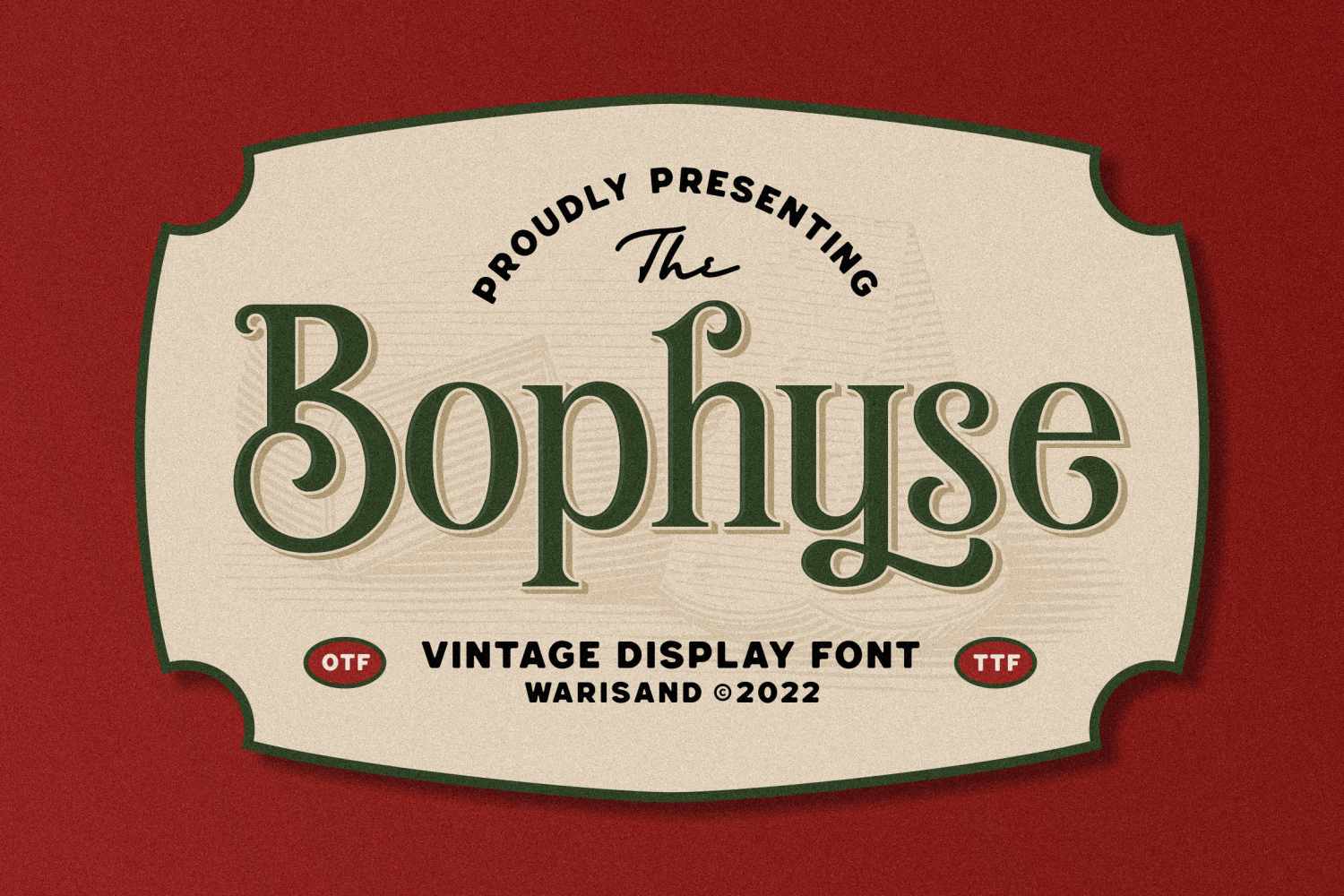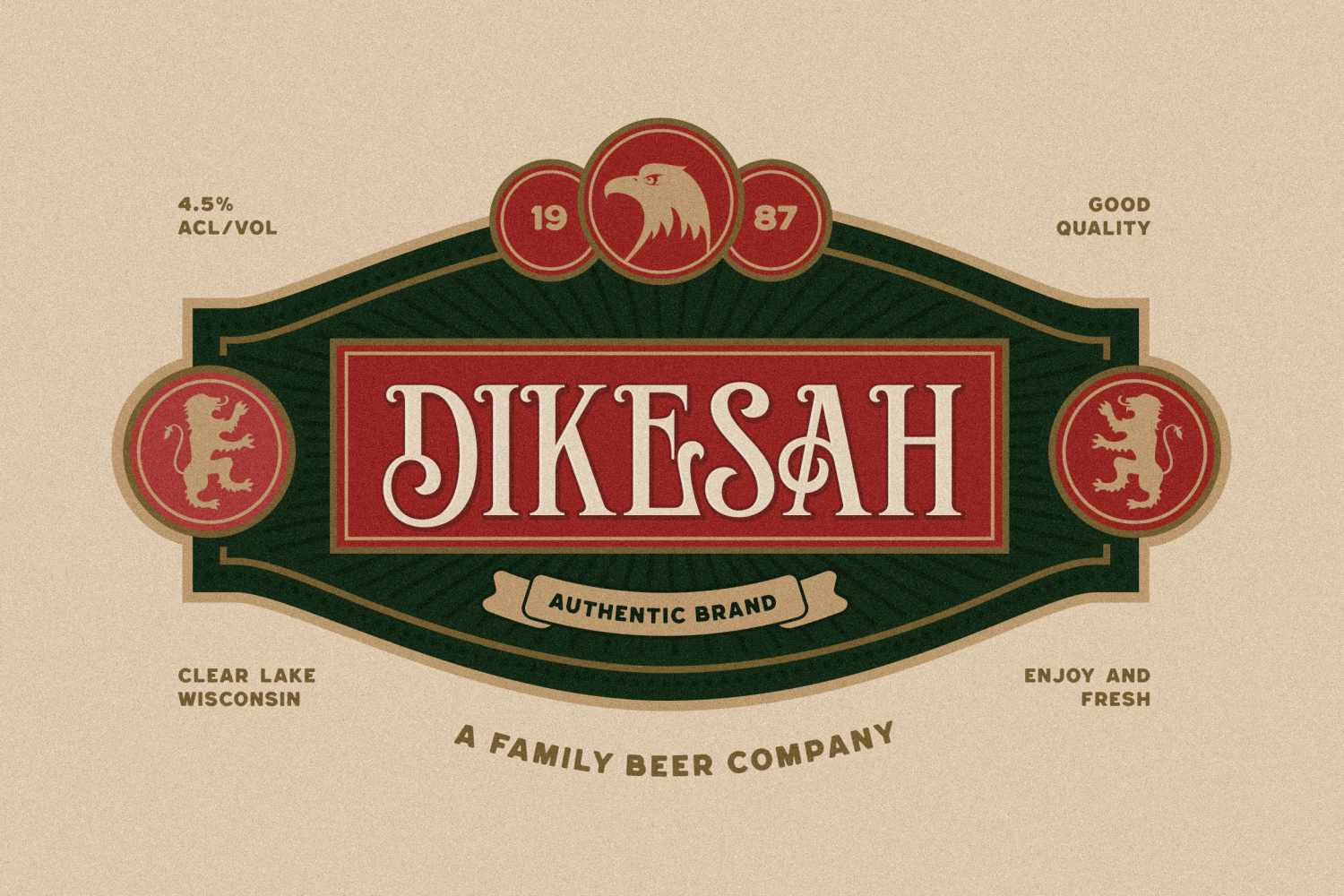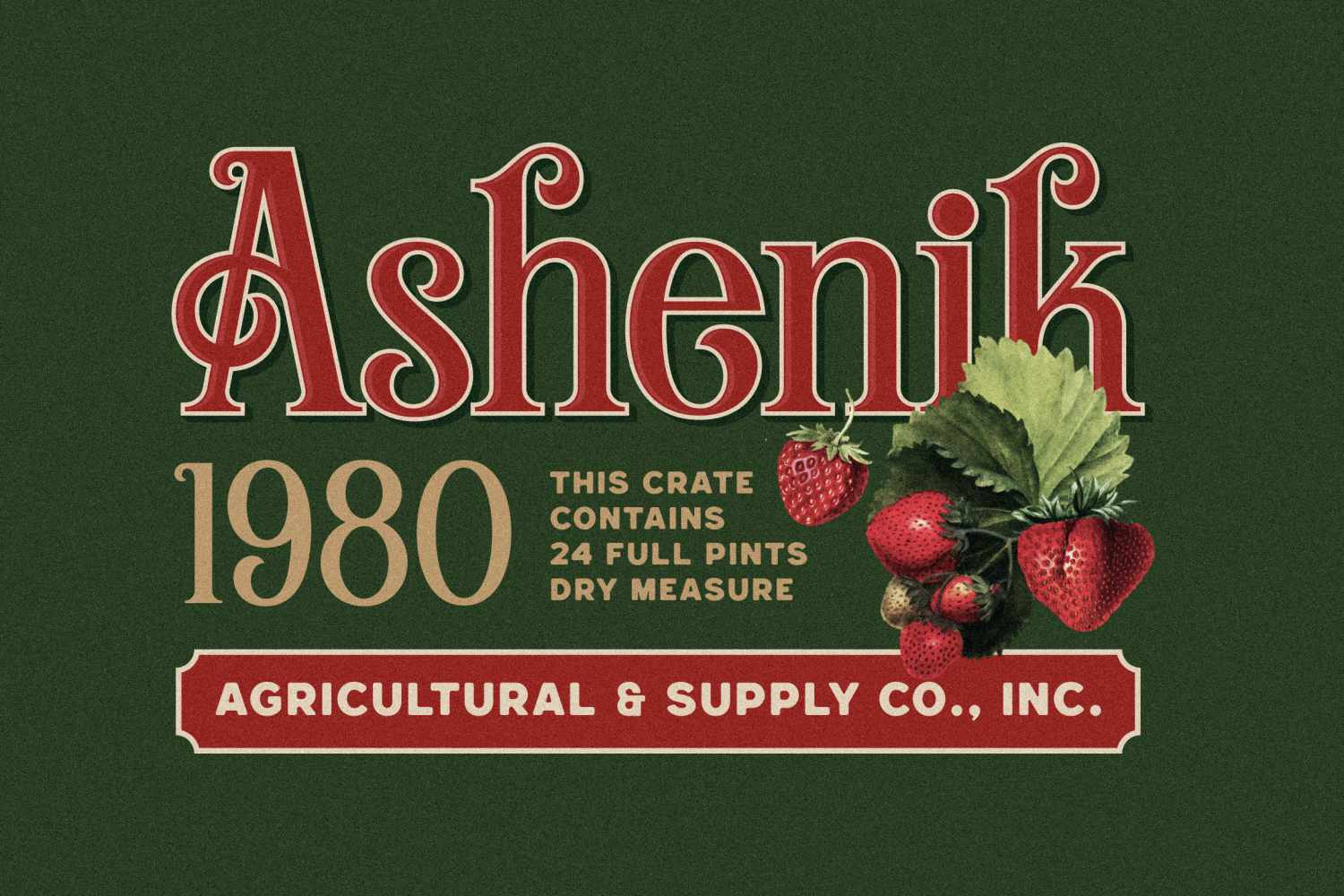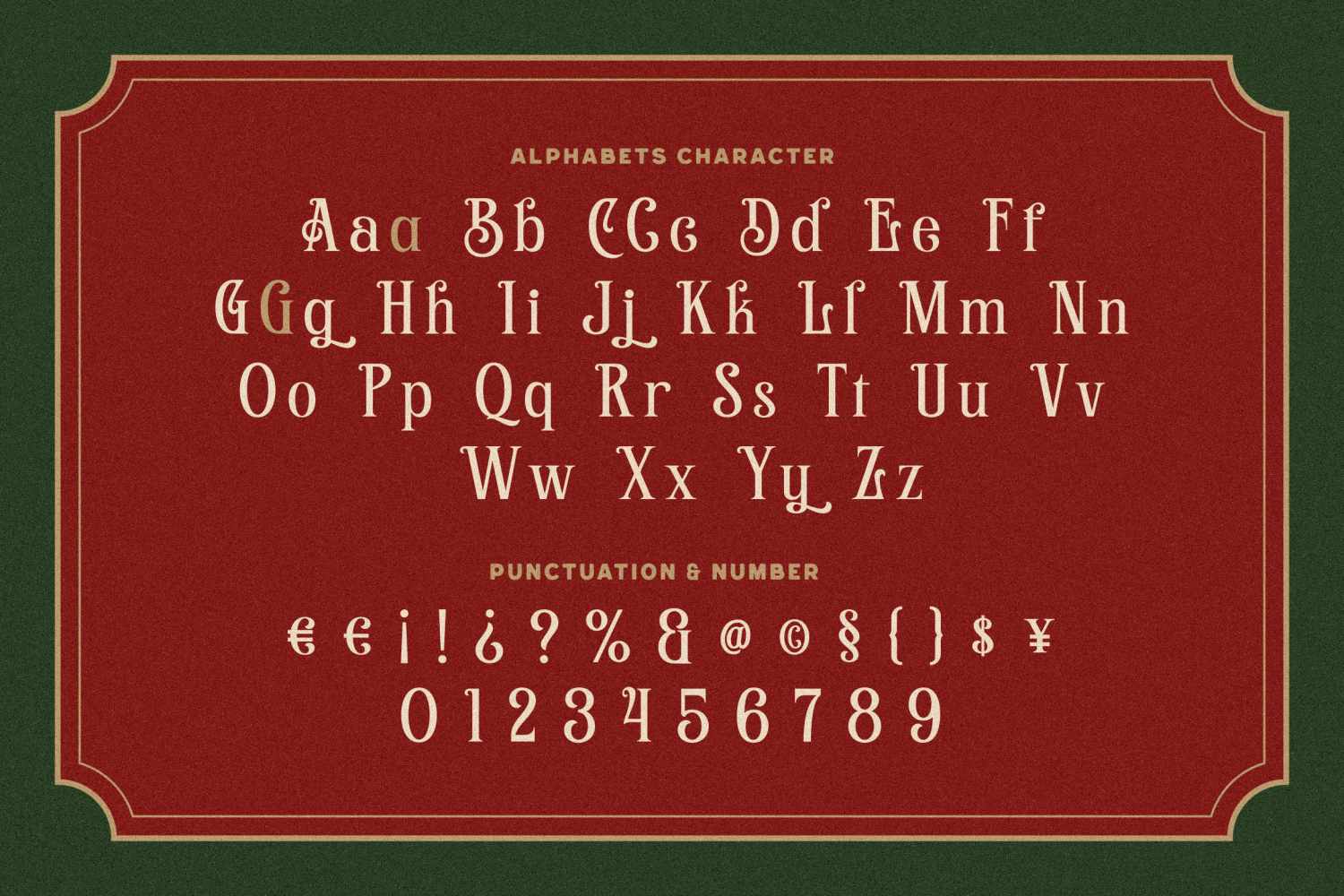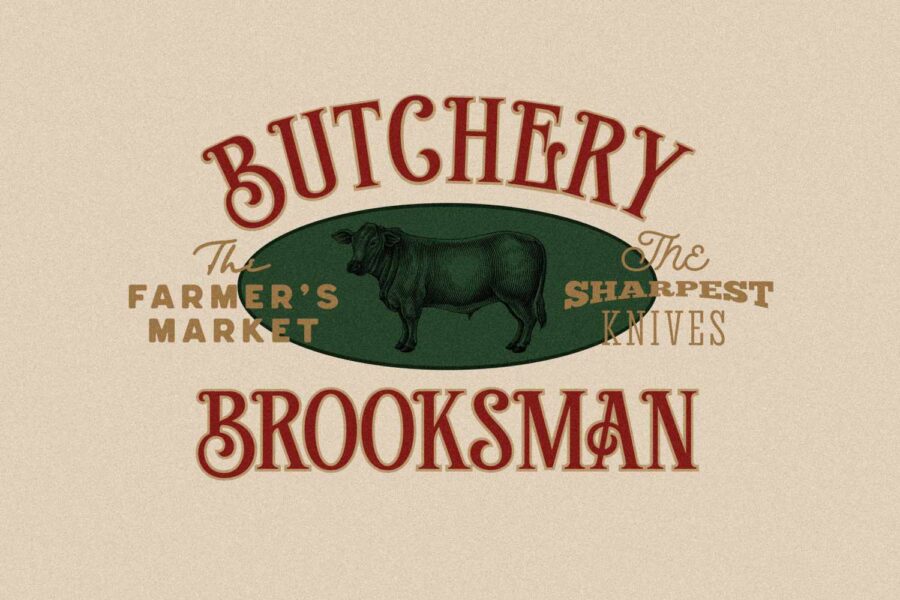
Bophyse
Bophyse is a classic vintage display font that beautifully blends retro charm with modern elegance. Featuring ornate letterforms with decorative curves and stylized swashes, this font evokes the spirit of old-time labels, badges, and signage. The bold serifs and fine detailing make it ideal for capturing attention in branding, packaging, posters, and editorial designs.
Perfect for evoking a sense of authenticity and heritage, Bophyse works beautifully in brewery logos, farmer’s markets, food packaging, and artisan products. With a full set of uppercase, lowercase, numbers, punctuation, and multilingual symbols, it gives designers a powerful tool for creating a timeless, handcrafted visual identity.